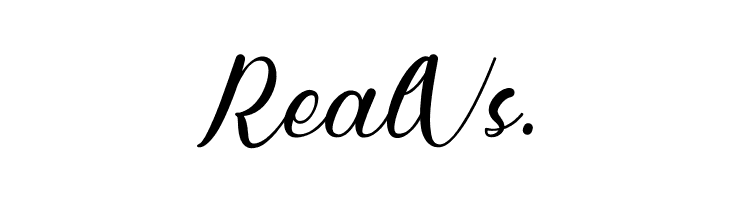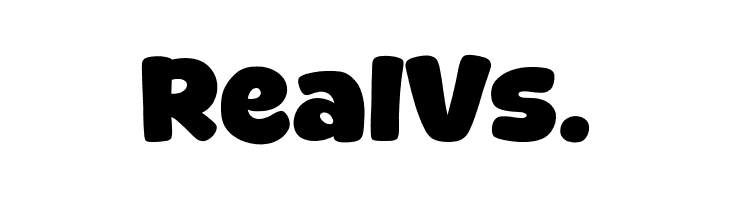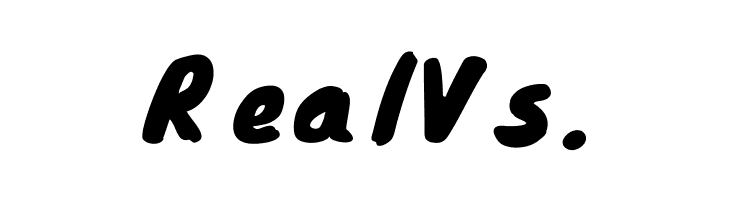
A bold, three-dimensional font with strong outlines and filled interiors, perfect for impactful designs.
A bold, 3D-effect font with a vintage, impactful style.
A minimalist, hand-drawn outline font with a clean and modern aesthetic.
A bold, distressed font with a splatter effect, ideal for urban and edgy designs.
A modern, narrow font with a geometric and structured design.
A futuristic, geometric font with bold, interconnected lines and a sci-fi aesthetic.
A futuristic, geometric font with a three-dimensional effect and sharp, angular lines.
A bold, angular, italic font with a modern, geometric style.
A whimsical and artistic font featuring characters with unique facial expressions.
A bold, geometric font with strong, impactful letterforms.
A bold, geometric font with high legibility and structured design.
Abstract, spiky, and geometric symbol set with bold, high-contrast shapes.
A bold, decorative font with spiky, textured accents for a playful and edgy look.
A dynamic script font with bold, flowing characters and a modern flair.
A bold, expressive script font with a modern and flowing style.
A graceful, cursive font with elegant, flowing strokes.
A whimsical font with characters featuring cartoonish eyes, perfect for playful designs.
A modern, geometric sans-serif font with a clean and minimalistic design.
A refined serif font with thin strokes and elegant curves, perfect for formal use.
A bold, decorative font made entirely of stylized eye illustrations.
A bold, angular font inspired by ancient runic scripts, ideal for historical or thematic designs.
A bold, angular font with a rugged, ancient style.
A bold, italicized font with angular, hand-drawn characters and a dynamic style.
A bold, angular, and italicized font with a modern, edgy style.
A bold, 3D sans-serif font with a shadow effect, ideal for impactful headlines.
A bold, distressed font with sharp, angular edges and a grunge texture.
Ornamental dingbat font with border and corner motifs.
A graceful script font with flowing, connected strokes and elegant swashes.
A bold, rounded font with a playful and approachable style.
A playful, handwritten font with uneven strokes and a whimsical style.